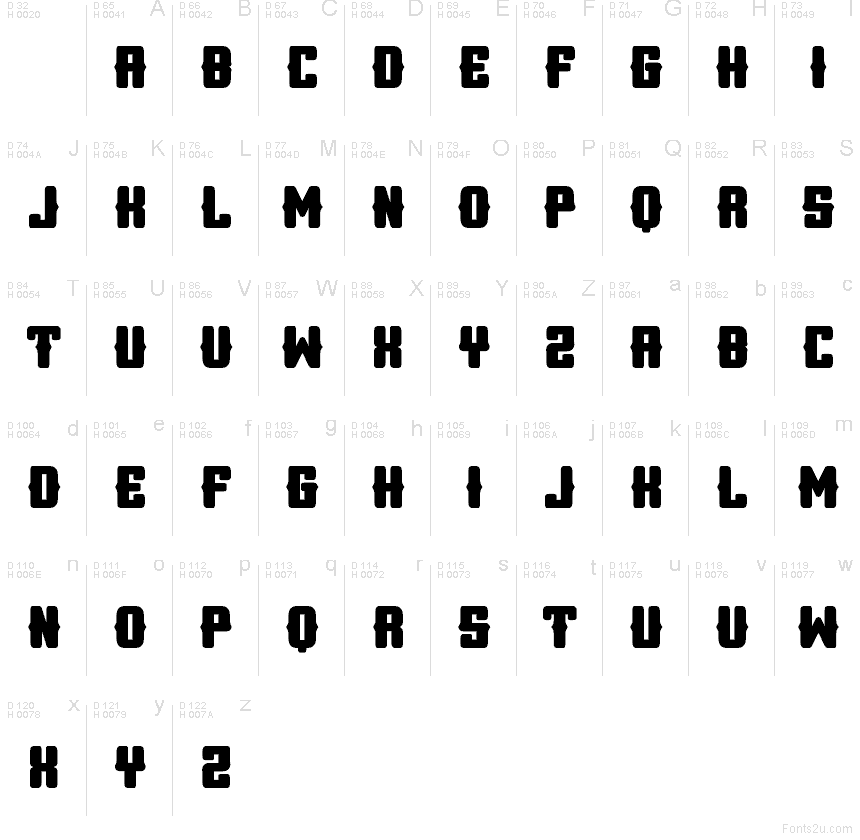
Amigo Book Regular
Amigo Book font by Vladimir Nikolic is a free Mexican-style decorative typeface with bold, blocky shapes and carved-in waistlines that feel like cut wood or stamped lettering. Its chunky verticals and tight rhythm create a strong, unified word silhouette that jumps off the page, while the angular, almost stencil-like cuts give it a gritty, festive edge that’s hard to miss.
Using Amigo Book, headlines instantly pick up a cantina, Día de Muertos, or fiesta vibe without needing extra graphics. This free font works beautifully for restaurant logos, taco truck branding, festival posters, party invitations, packaging, and bold social media titles. Set it large for maximum impact and pair Amigo from the same family with a clean geometric sans for menus or supporting text.